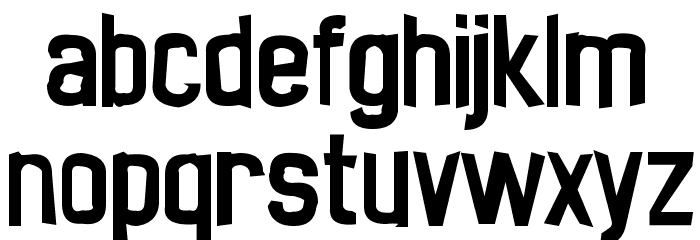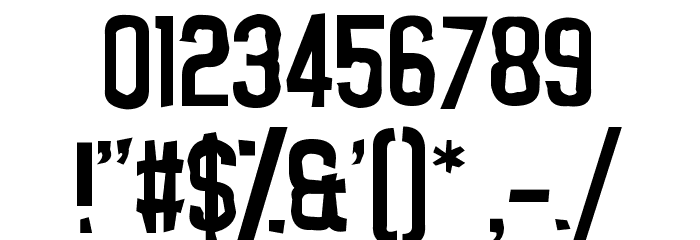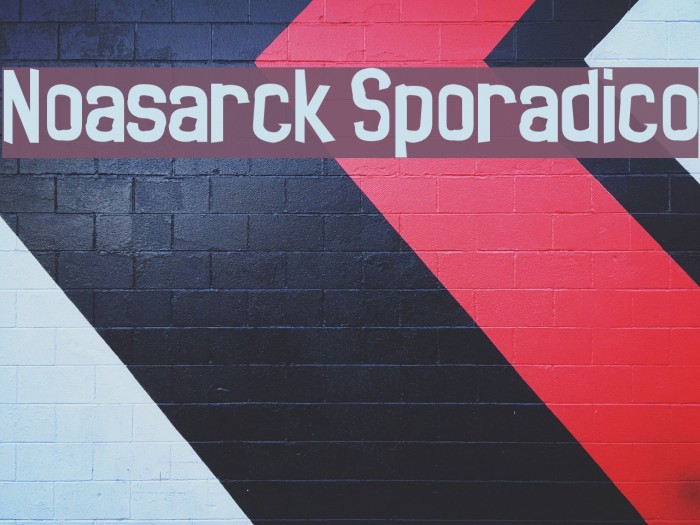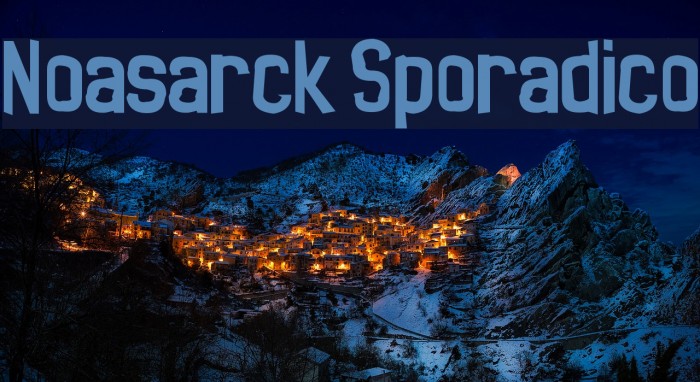
Noasarck Sporadico Font
This font features a bold and assertive style with a modern flair. The uppercase letters are tall and slightly condensed, giving a strong and impactful appearance. The lowercase letters maintain a consistent height, providing a balanced look. The numerals are clear and legible, matching the boldness of the alphabetic characters. Special characters are designed with the same boldness, ensuring uniformity across all glyphs. The overall design is suitable for making statements, with its thick strokes and minimal contrast, making it ideal for attention-grabbing headlines and logos.
A bold, modern font with tall, slightly condensed characters and minimal contrast.
- Proposed Projects: Ideal for branding, advertising, posters, and any project requiring a strong visual impact.